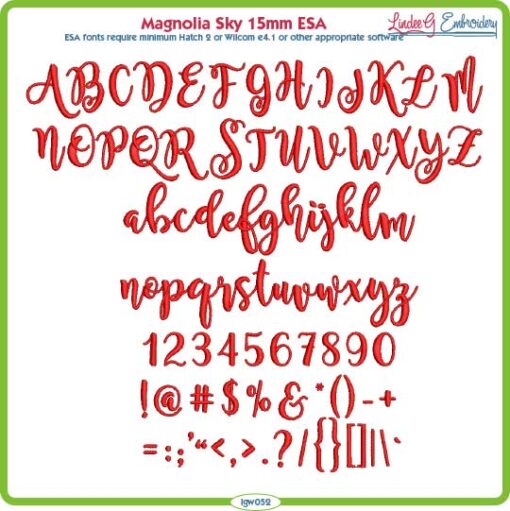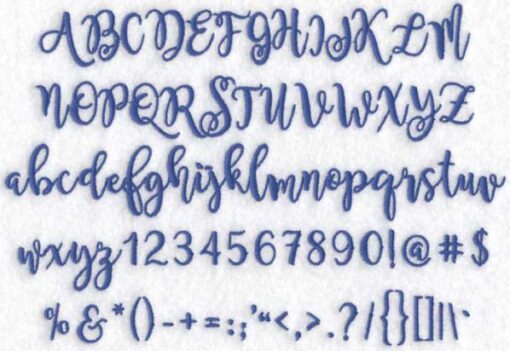
Resizable casual upright calligraphic script font. Upper and lowercase letters, numbers, and available punctuation.This is an ESA file and requires Hatch 2, Embroidery Studio 4.1 or newer. Place the unzipped file in the appropriate folder for your version. Size indicates size at which it was digitized and is the smallest recommended size.